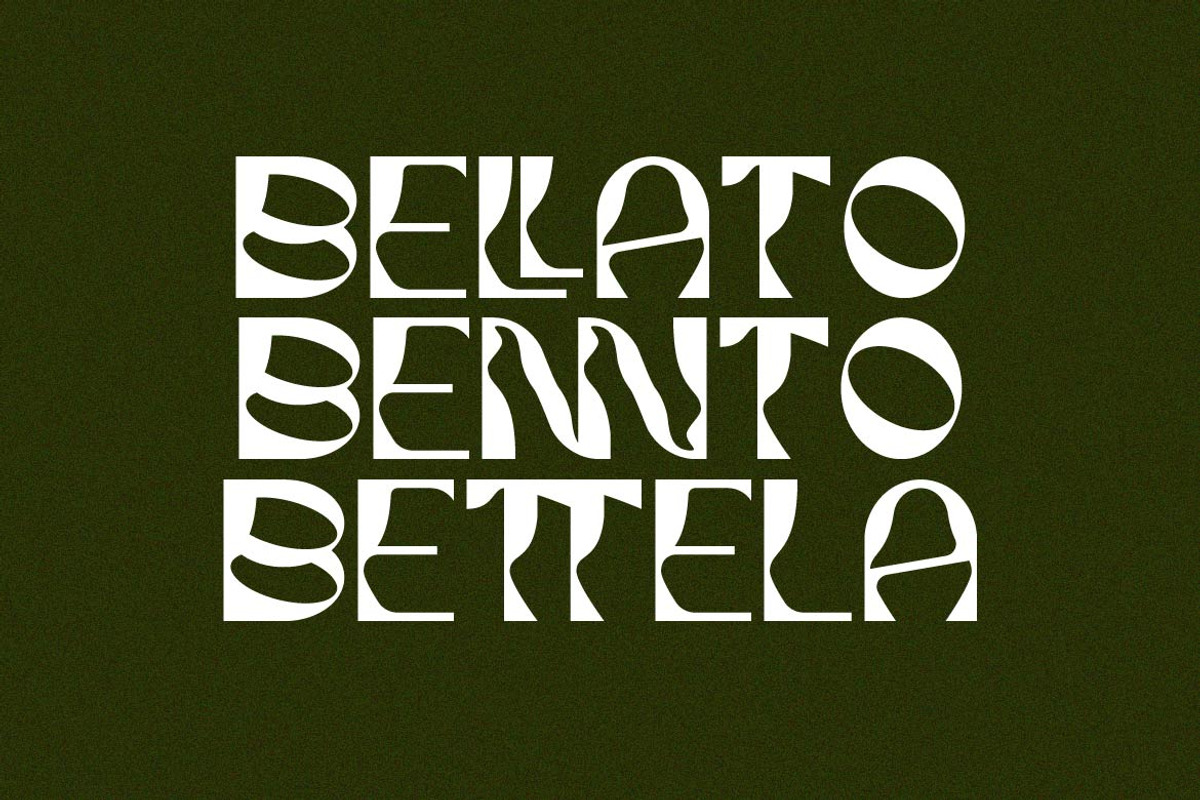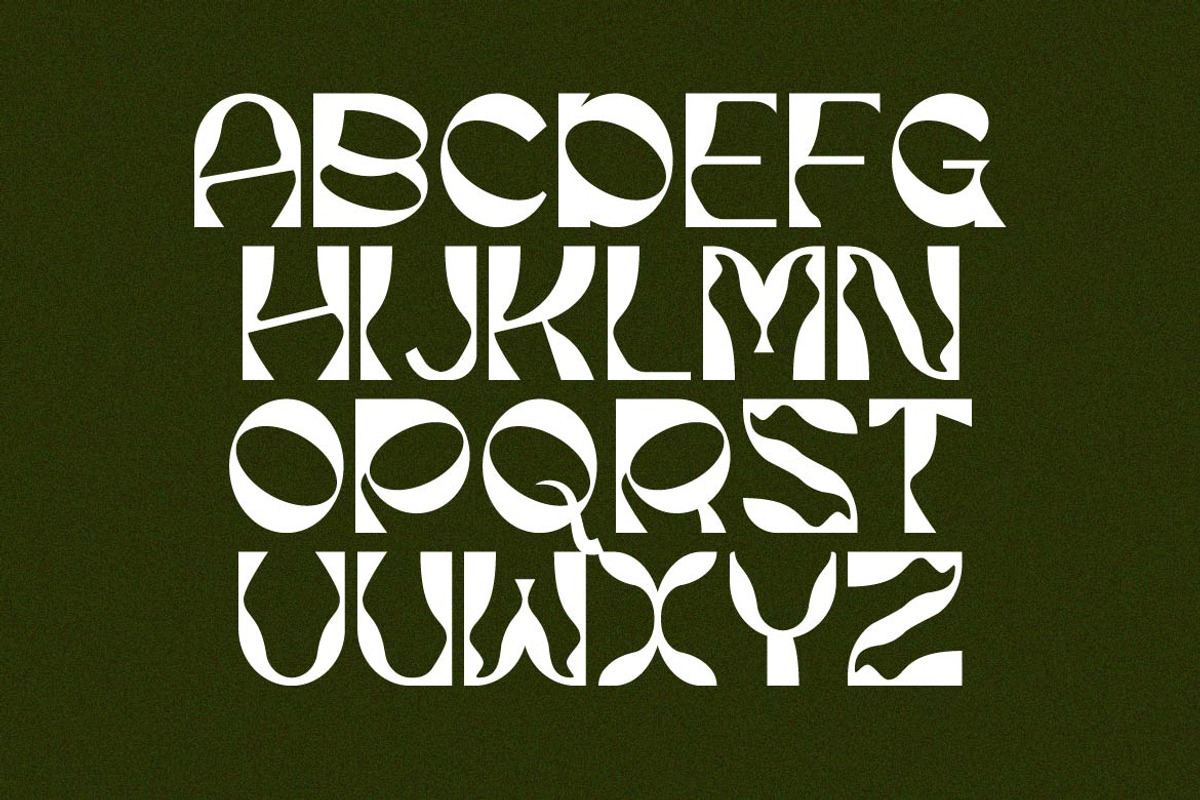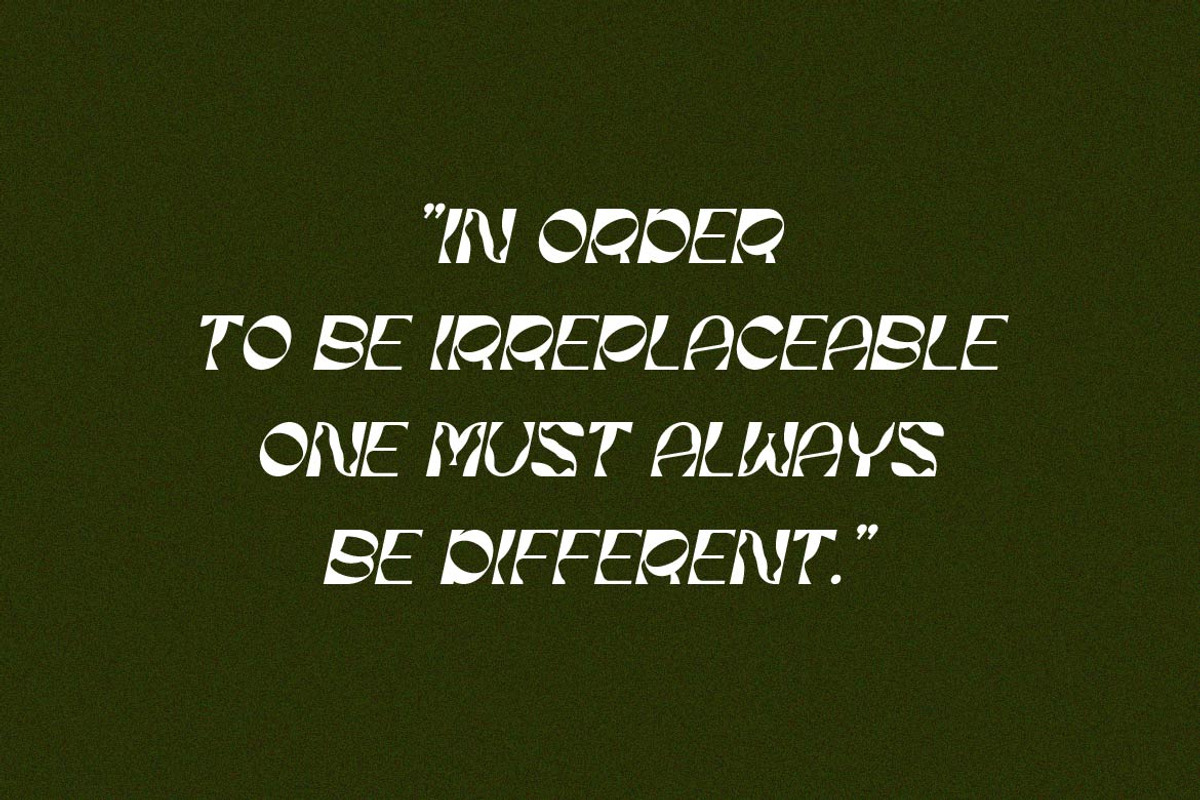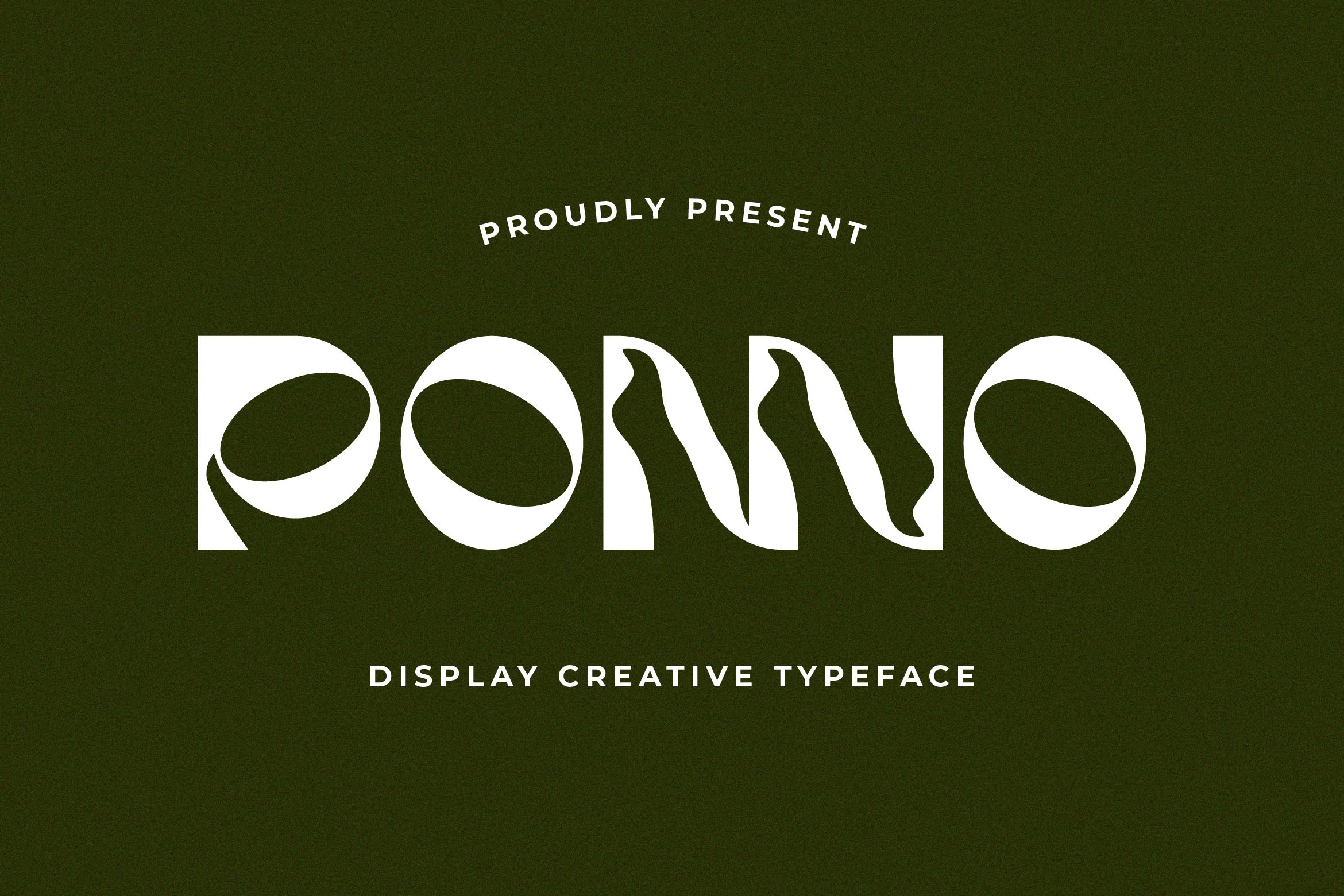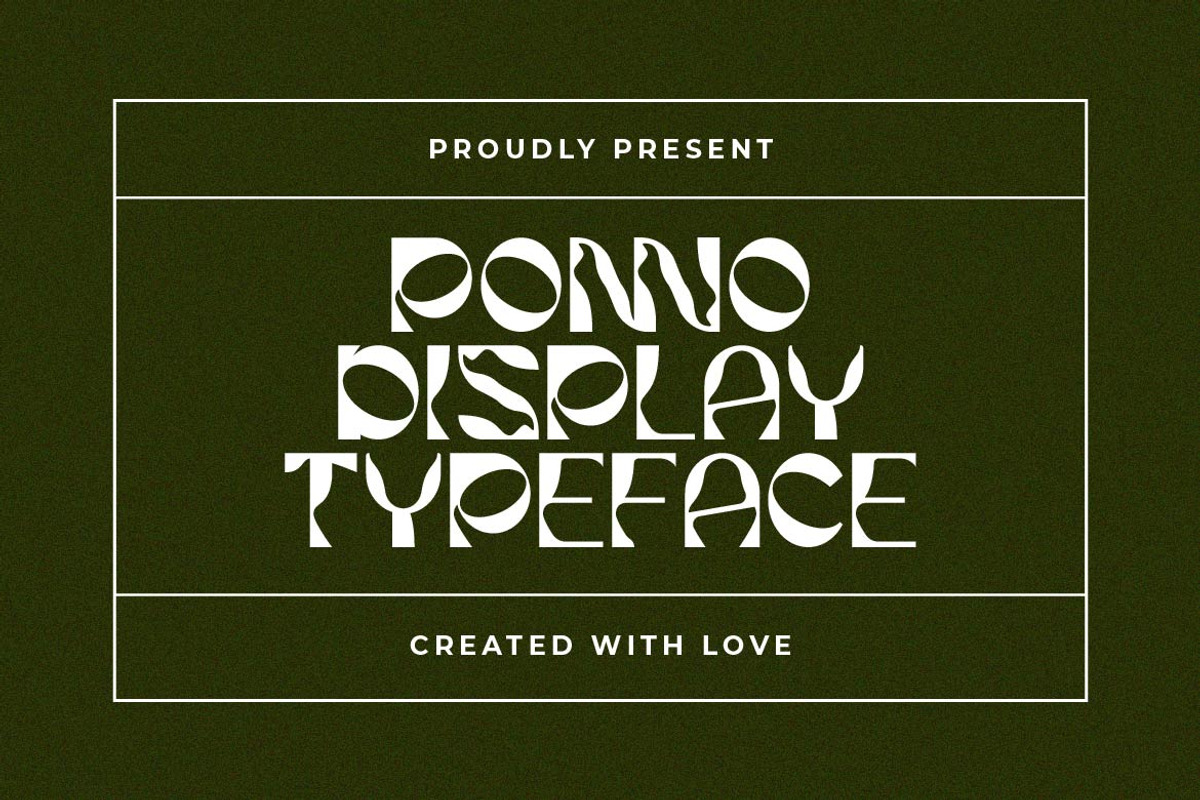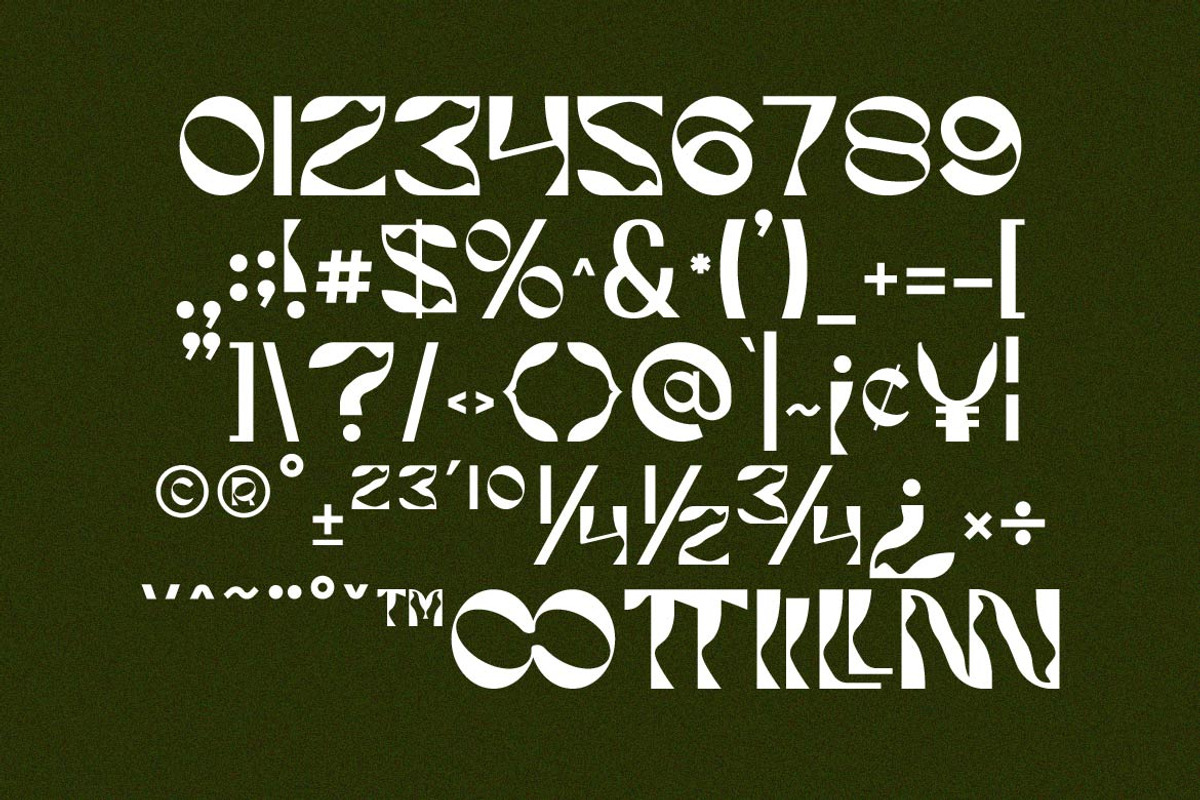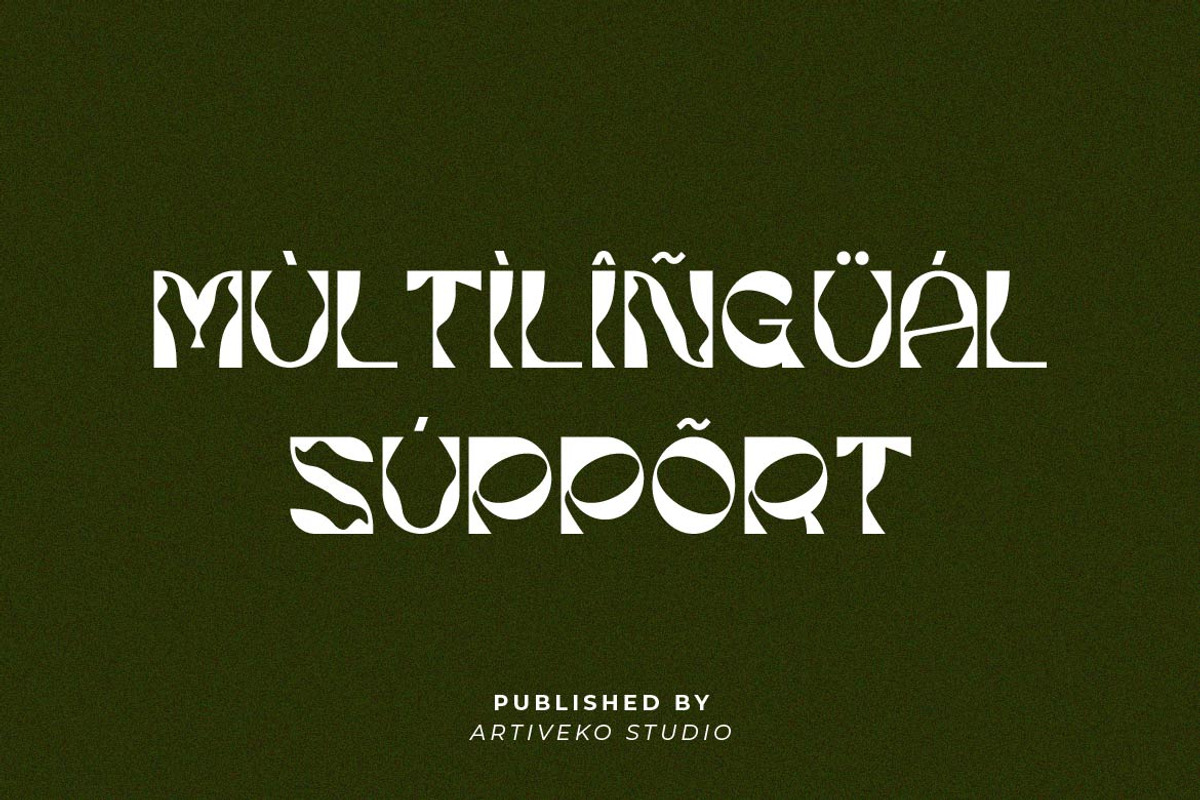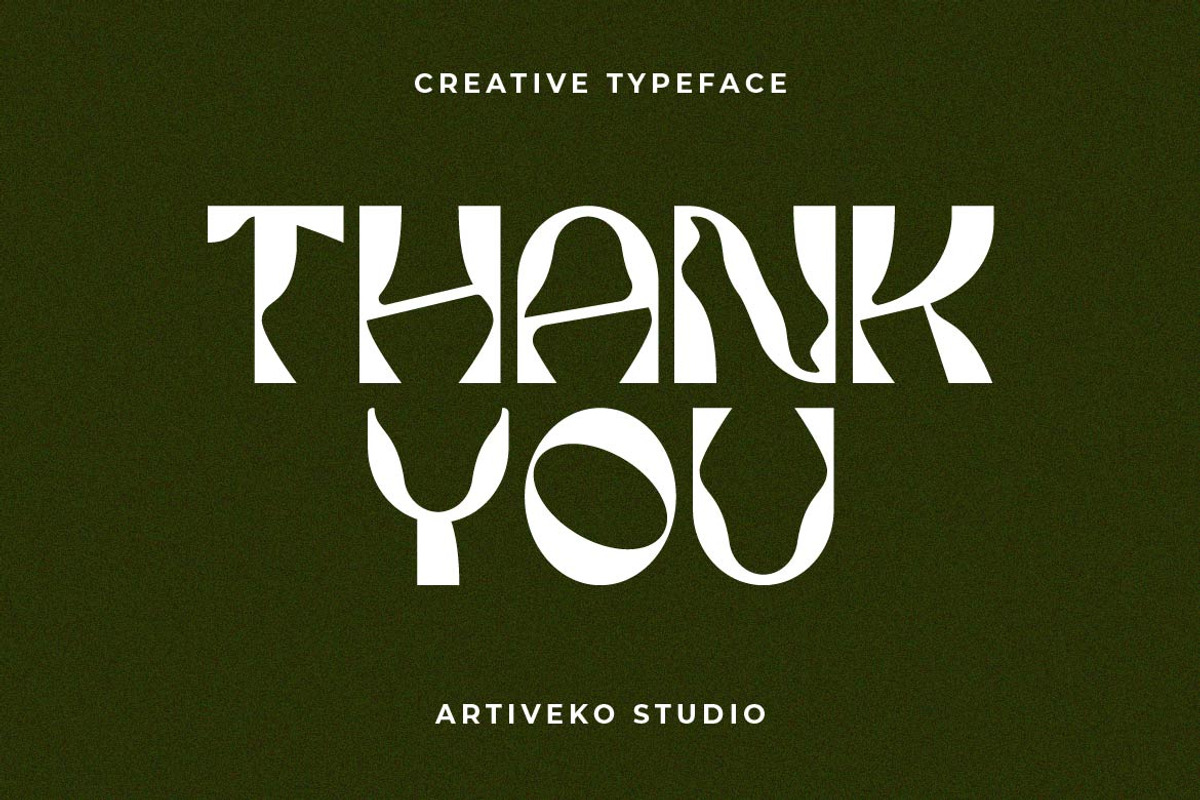
Ponno Creative Display Font
Ponno is a vibrant and imaginative display decorative font crafted to bring personality and charm to any design. With its unique shapes, expressive curves, and artistic details, Ponno is perfect for projects that need a fun, standout visual identity.